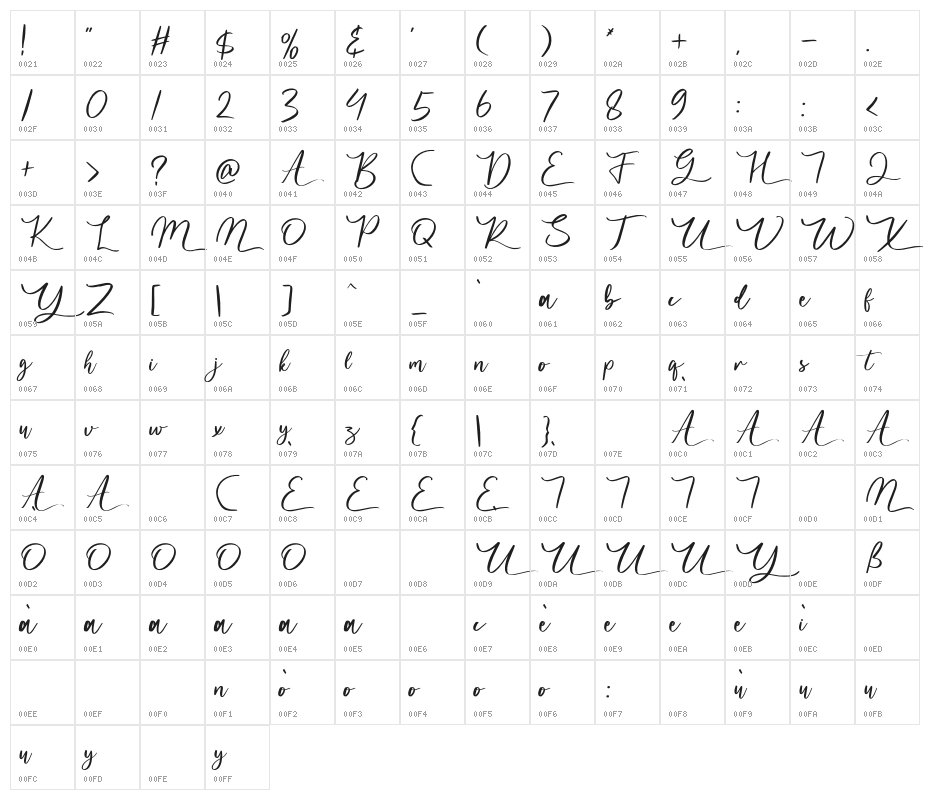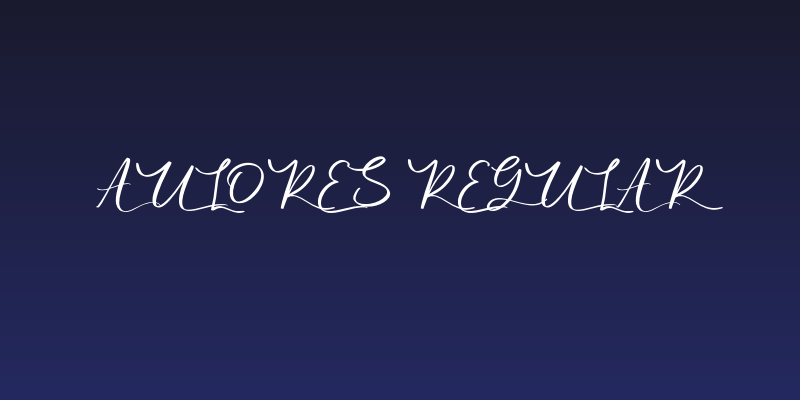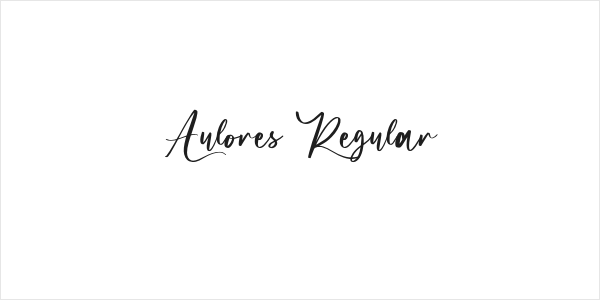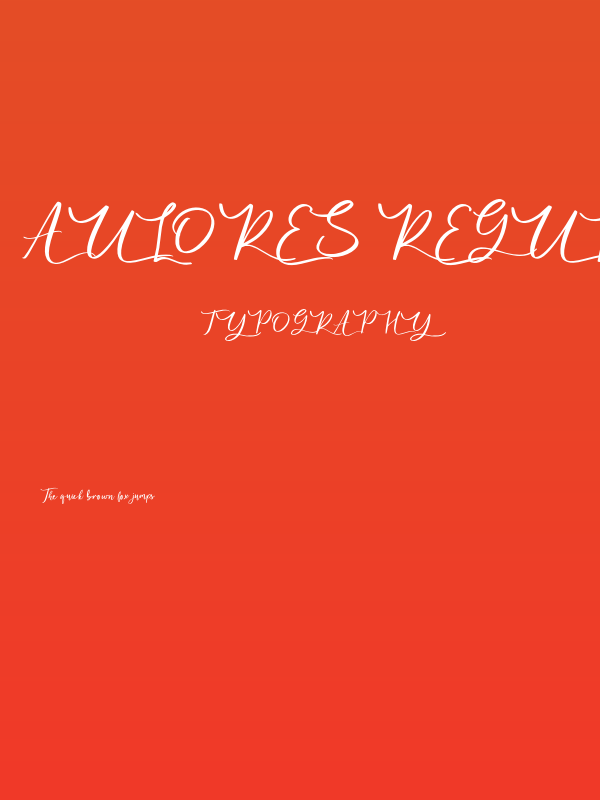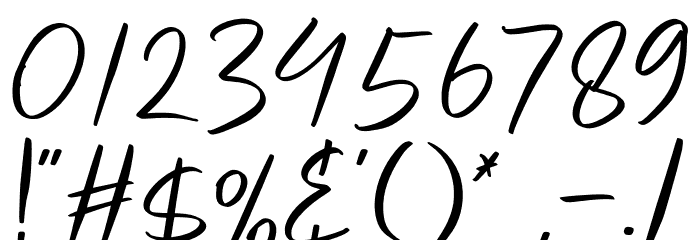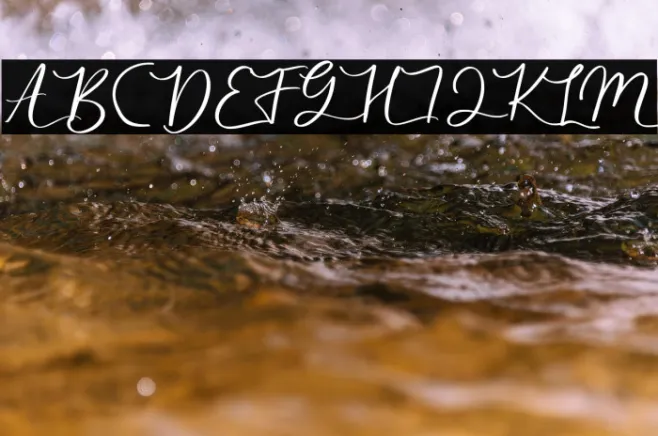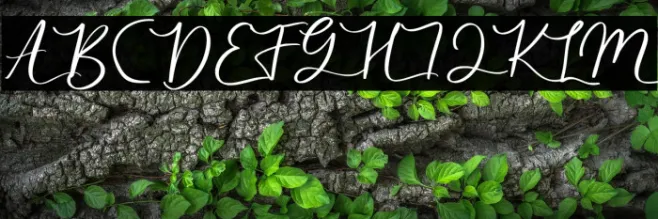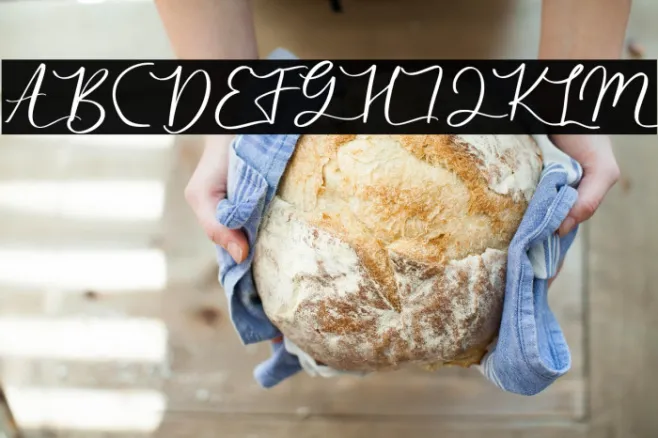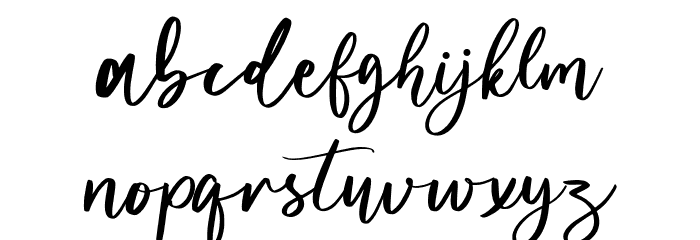
Aulores Regular Font
Aulores Regular Description
This font is a stylish and elegant script with a flowing, cursive design. The uppercase letters are characterized by their sweeping curves and graceful lines, giving them a sophisticated and artistic appearance. The lowercase letters maintain a consistent flow, with smooth connections between each character, enhancing the overall fluidity of the text. The numerals are designed with a similar flair, featuring curved strokes that complement the letters. Special characters are creatively integrated, maintaining the font's cohesive aesthetic. This font exudes a sense of elegance and creativity, making it suitable for a variety of artistic and decorative applications.